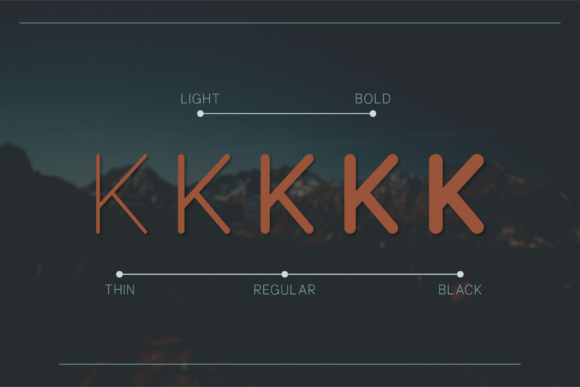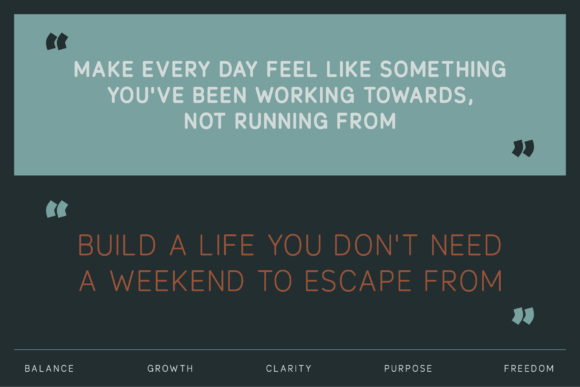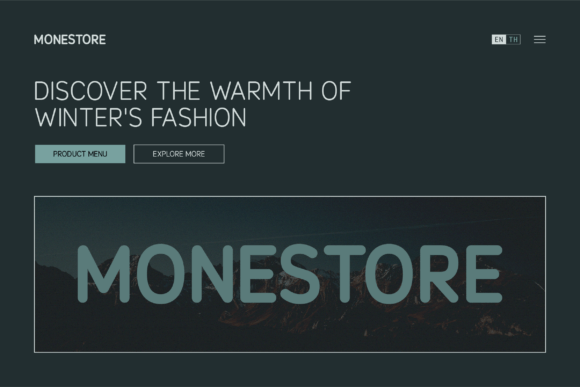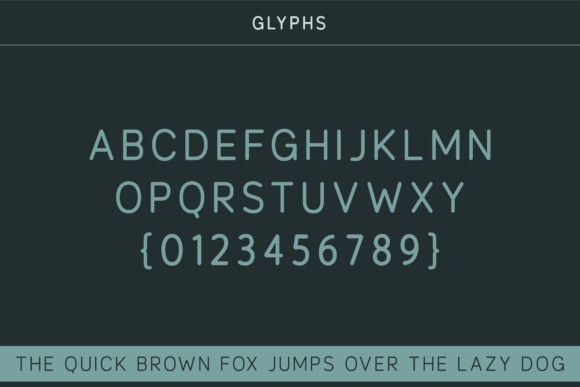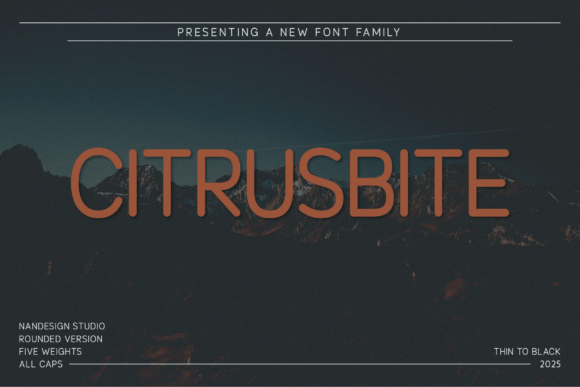
Citrusbite Rounded Font: Elevate Your Design with a Modern, Friendly Twist
In the world of typography, the right font can make all the difference in conveying your message, expressing your brand’s personality, and captivating your audience. If you’re a designer, crafter, or brand creator looking for a font that combines clarity, warmth, and bold personality, look no further than Citrusbite Rounded. This modern all-caps sans serif font family is designed to bring a polished, confident touch to your creative projects, making it an excellent addition to your typographic arsenal.
The Design Philosophy Behind Citrusbite Rounded
Citrusbite Rounded is built on a foundation of sleek, geometric construction, softened by rounded edges that add a touch of warmth and approachability. This thoughtful design approach results in a font that is not only highly legible but also aesthetically balanced. The font family consists of five versatile weights: Thin, Light, Regular, Bold, and Black, offering you the flexibility to use it across a wide range of applications, from subtle, high-end branding to bold, eye-catching headlines.
Key Features of Citrusbite Rounded
- Modern All-Caps Sans Serif Design: Citrusbite Rounded is an all-caps font, ensuring that your text always stands out with a sense of grandeur and importance.
- Soft-Rounded Edges: The subtle rounding of the edges gives the font a friendly, approachable feel without sacrificing modernity.
- Geometric Construction: The font’s geometric base provides a clean, structured look that is both versatile and timeless.
- Five Versatile Weights: With Thin, Light, Regular, Bold, and Black weights, you have the flexibility to create visual hierarchies and emphasize certain parts of your text.
- High Legibility: The design prioritizes clarity, making it easy to read across various mediums and sizes.
Applications of Citrusbite Rounded
Citrusbite Rounded’s adaptability and distinctive personality make it suitable for a wide array of design projects. Here are some of the ways you can leverage this versatile font:
- Logo Design: Create memorable and impactful logos that stand out with Citrusbite Rounded’s unique blend of modernity and warmth.
- Packaging Design: Elevate your product packaging with a clean yet friendly visual identity that captures consumers’ attention.
- Social Media Visuals: Enhance your social media presence with eye-catching visuals that communicate your message clearly and confidently.
- Headlines and Titles: Use Citrusbite Rounded to create high-impact headlines and titles that add a touch of sophistication to your content.
Why Choose Citrusbite Rounded?
In a sea of fonts, Citrusbite Rounded stands out for its unique combination of modernity, warmth, and versatility. Here are a few reasons why designers and crafters are gravitating towards this font family:
- Unique Aesthetic: The soft-rounded edges and geometric construction offer a fresh take on the traditional sans serif font, providing a distinctive look that can help your designs stand out.
- Legibility and Readability: Citrusbite Rounded is designed to be easy to read, making it perfect for both digital and print applications.
- Versatility: With five weights at your disposal, you can use Citrusbite Rounded across a wide range of projects, from delicate, high-end branding to bold advertising.
Citrusbite Rounded is more than just a font – it’s a design tool that can elevate your creative projects to new heights. Its modern all-caps sans serif design, combined with soft-rounded edges and a range of weights, makes it an incredibly versatile and legible choice. Whether you’re a designer looking to refresh your brand’s visual identity, a crafter seeking a unique font for your handmade products, or a brand creator aiming to make a bold statement, Citrusbite Rounded is an excellent choice. Embrace the blend of clarity, warmth, and bold personality that Citrusbite Rounded offers, and watch your designs transform with a polished, confident touch.